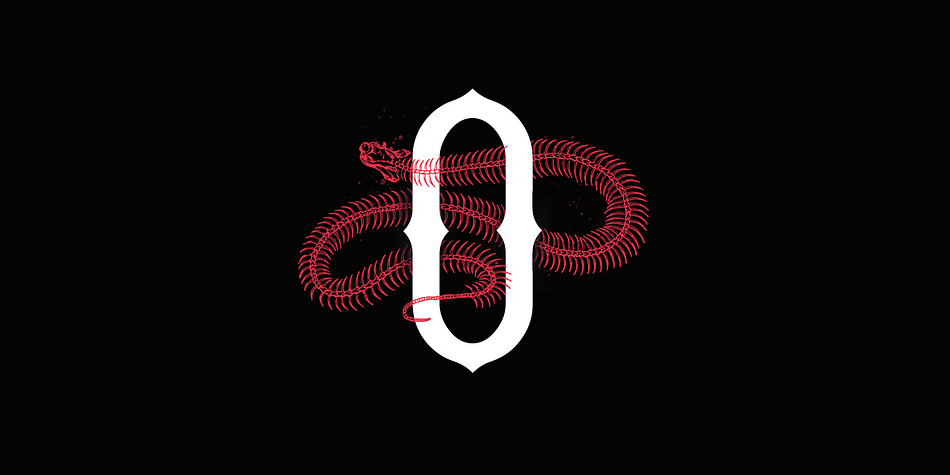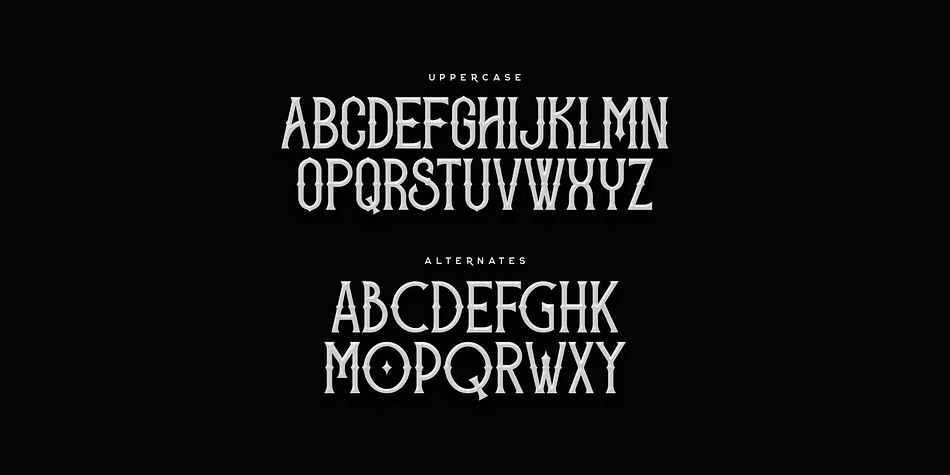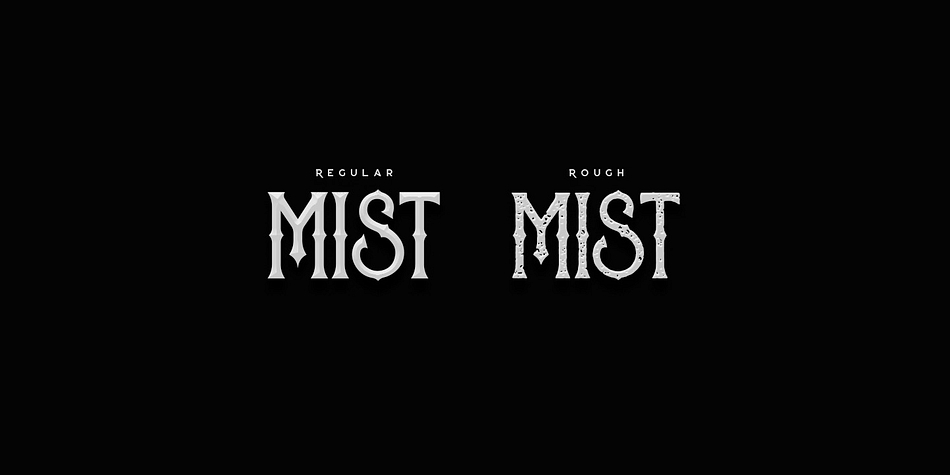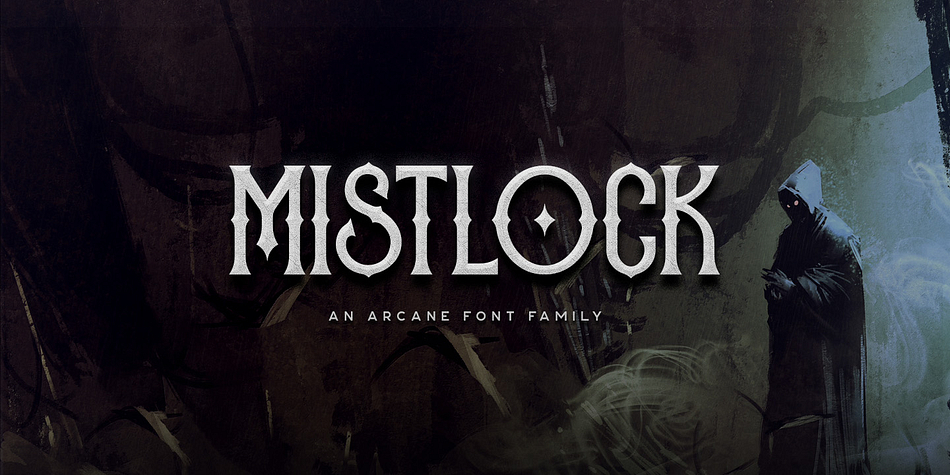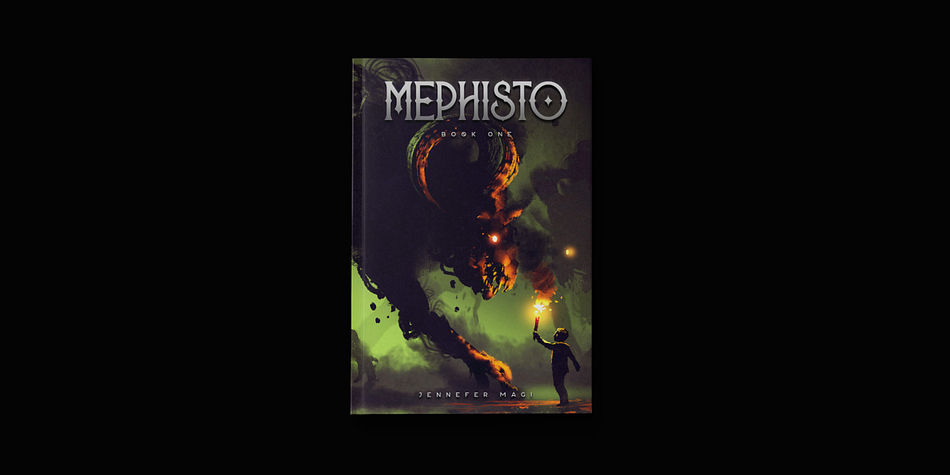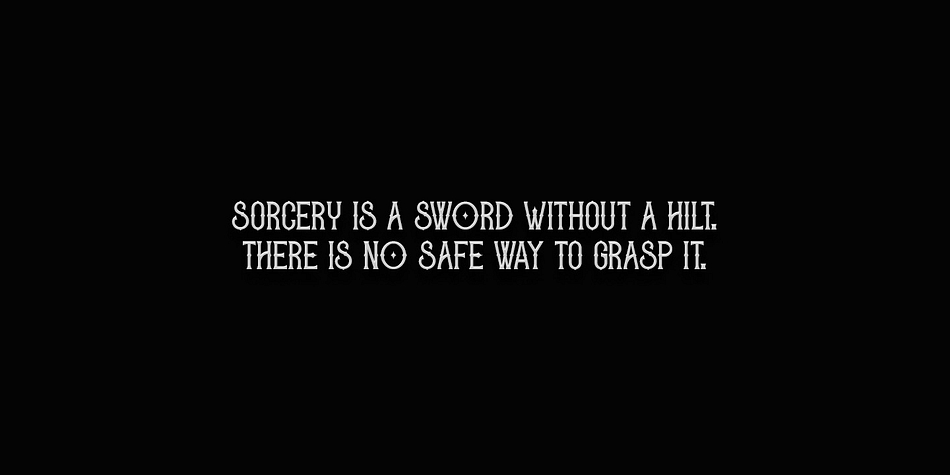
Mistlock is a display and western font family. This typeface has two styles and was published by Tugcu Design Co.
Mistlock is a fantasy themed font family with tons of alternate letters. It includes uppercase multilingual characters, numbers and punctuation. Mistlock also comes in rough and regular versions.